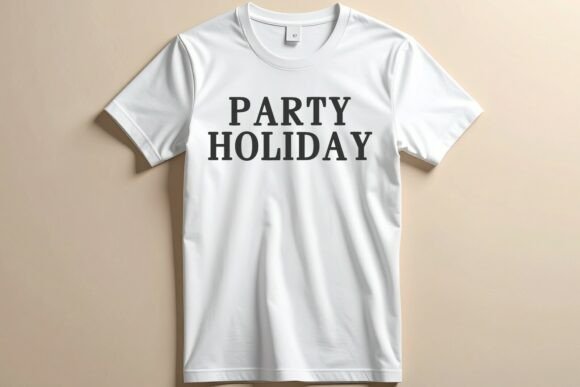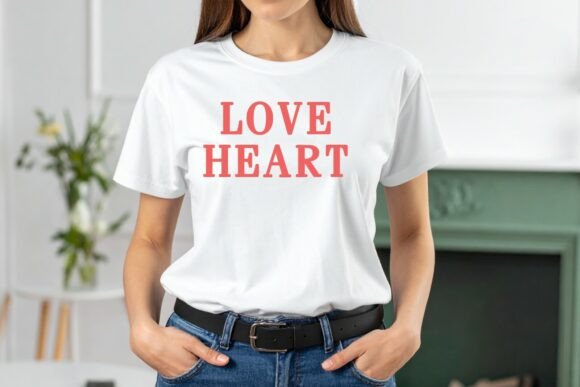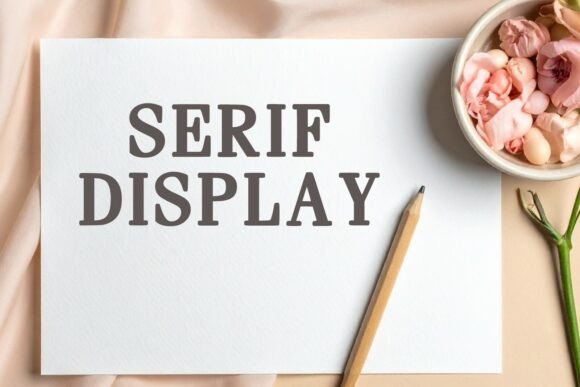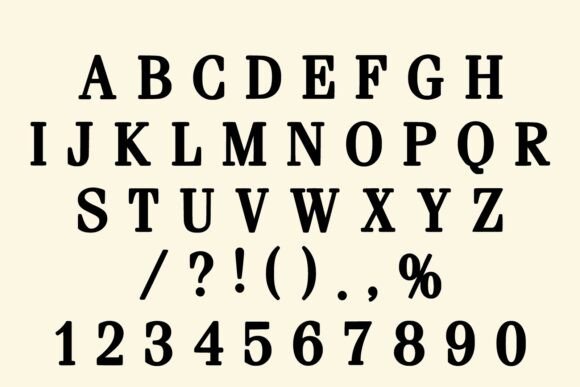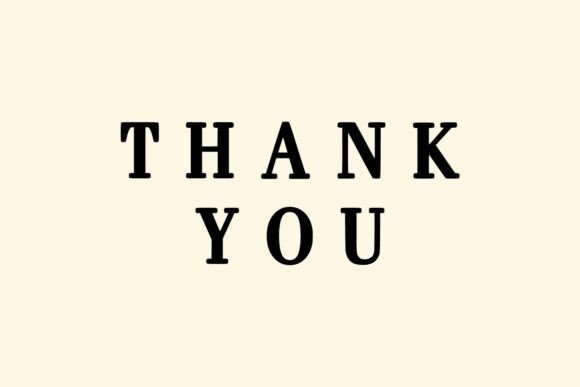
Introducing Calista Monday: The Ultimate Modern Serif Display Font
In the world of typography, a font can make all the difference in the success of a design project. For designers and crafters looking for a modern serif display font that exudes classic elegance and a bold contemporary feel, look no further than Calista Monday. This stunning font combines strong letterforms, high contrast strokes, and stylish curves to create a truly unique and sophisticated visual identity.
Key Features of Calista Monday
- Classic Elegance with a Modern Twist: Calista Monday seamlessly blends traditional serif elements with a bold, contemporary aesthetic, making it perfect for a wide range of design applications.
- Strong Letterforms: The font features robust and confident letterforms that command attention and convey a sense of sophistication.
- High Contrast Strokes: The high contrast between thick and thin strokes adds depth and visual interest to the font, making it ideal for headlines, titles, and other display text.
- Stylish Curves: The elegant curves and refined lines of Calista Monday add a touch of luxury and refinement to any design.
Calista Monday is an incredibly versatile font that can be used in a wide range of design projects, including:
- Branding: Create a lasting impression with a custom logo or brand identity that exudes sophistication and elegance.
- Editorial Design: Add a touch of luxury to magazine layouts, newspaper articles, and other editorial content.
- Posters and Headlines: Grab attention with bold and eye-catching headlines that showcase the font’s strong letterforms and high contrast strokes.
- Logos and Wordmarks: Create a custom logo or wordmark that is both memorable and visually stunning.
- Fashion Projects: Add a touch of glamour and sophistication to fashion designs, including clothing, accessories, and packaging.
- Luxury Visuals: Create stunning visuals that showcase the font’s elegant curves and refined lines.
Why Choose Calista Monday?
With so many fonts to choose from, why choose Calista Monday? Here are just a few reasons why this font stands out from the rest:
- Unique and Sophisticated: Calista Monday is a truly unique font that adds a touch of sophistication and elegance to any design.
- Versatile: The font can be used in a wide range of design applications, from branding and editorial design to posters and fashion projects.
- Easy to Read: Despite its bold and elegant appearance, Calista Monday is surprisingly easy to read, making it perfect for body text and other longer-form content.
- Supports Multiple Languages: The font supports multiple languages, making it a great choice for designers and crafters working on international projects.
- Personal Projects: Use the font to create stunning visuals and marketing materials for personal projects.
- Crafting and DIY: Add a touch of elegance and sophistication to crafting and DIY projects.
- Social Media Graphics: Create stunning social media graphics that showcase the font’s elegant curves and refined lines.
In conclusion, Calista Monday is a truly exceptional modern serif display font that is perfect for designers and crafters looking to add a touch of sophistication and elegance to their designs. With its strong letterforms, high contrast strokes, and stylish curves, this font is sure to make a lasting impression. Whether you’re working on a personal or commercial project, Calista Monday is an excellent choice.